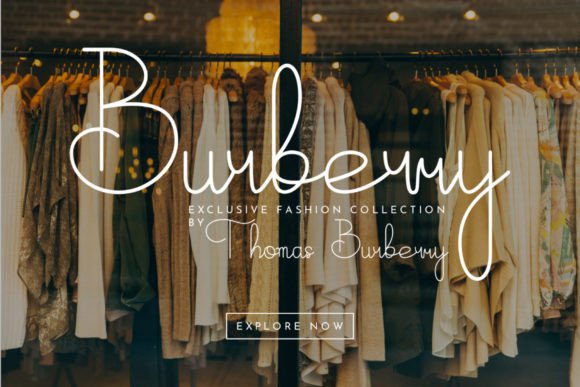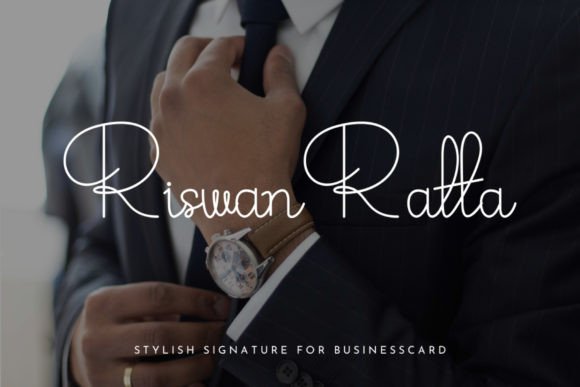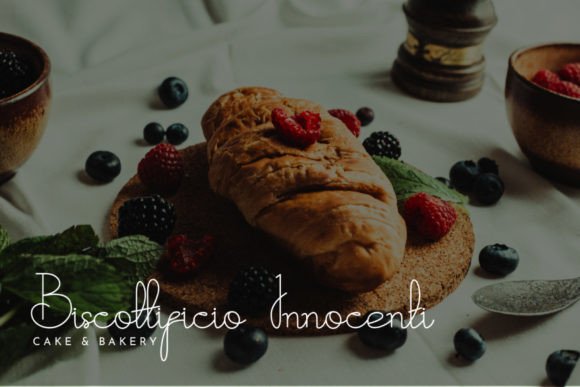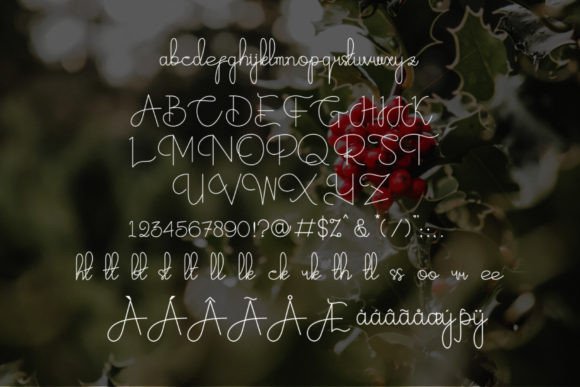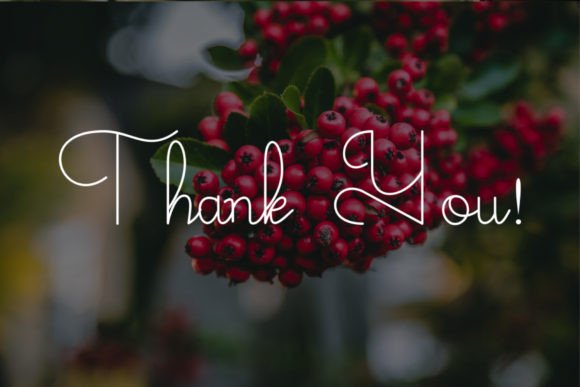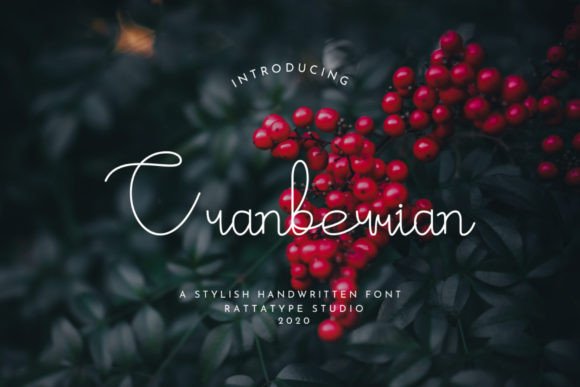
Introducing CRANBERRIAN: The Elegant Handwritten Font for Creative Projects
Are you a designer or crafter looking for a font that exudes luxury, elegance, and sophistication? Look no further than CRANBERRIAN, a beautiful handwritten style font that is perfect for a variety of creative projects. In this article, we’ll take a closer look at the CRANBERRIAN Typeface and explore its features, uses, and benefits.
What is CRANBERRIAN Typeface?
CRANBERRIAN Typeface is a luxurious and elegant handwritten style font that is designed to add a touch of sophistication to any project. Its beautiful, flowing script is perfect for creating high-end designs that require a level of refinement and poise. Whether you’re working on a photography project, wedding invitation, or fashion brand, CRANBERRIAN is the perfect choice.
Key Features of CRANBERRIAN Typeface
So, what makes CRANBERRIAN Typeface so special? Here are just a few of its key features:
- Beautiful Handwritten Style: CRANBERRIAN Typeface is a handwritten style font that is designed to look like it was written with a pen or pencil. Its flowing script is elegant and refined, making it perfect for high-end designs.
- Luxurious and Elegant: CRANBERRIAN Typeface is the epitome of luxury and elegance. Its sophisticated design makes it perfect for projects that require a level of refinement and poise.
- Fashionable and Trendy: CRANBERRIAN Typeface is a fashionable and trendy font that is perfect for designers and crafters who want to create modern and stylish designs.
- Versatile: CRANBERRIAN Typeface is a versatile font that can be used for a variety of projects, including photography, weddings, signatures, fashion tag lines, food and beverage, logos, and more.
Uses of CRANBERRIAN Typeface
CRANBERRIAN Typeface is a versatile font that can be used for a wide range of projects, including:
- Photography: CRANBERRIAN Typeface is perfect for photography projects, such as photo captions, titles, and descriptions.
- Weddings: CRANBERRIAN Typeface is a popular choice for wedding invitations, wedding signs, and other wedding-related projects.
- Signatures: CRANBERRIAN Typeface is perfect for creating elegant signatures for business cards, letters, and other documents.
- Fashion Tag Lines: CRANBERRIAN Typeface is a great choice for fashion tag lines, logos, and branding projects.
- Food and Beverage: CRANBERRIAN Typeface is perfect for food and beverage branding projects, such as restaurant menus, wine labels, and more.
- Logos: CRANBERRIAN Typeface is a great choice for logos, particularly for businesses that want to convey a sense of luxury and elegance.
Benefits of Using CRANBERRIAN Typeface
So, why should you choose CRANBERRIAN Typeface for your next project? Here are just a few of the benefits of using this beautiful font:
- Adds a Touch of Elegance: CRANBERRIAN Typeface adds a touch of elegance and sophistication to any project.
- Versatile: CRANBERRIAN Typeface is a versatile font that can be used for a wide range of projects.
- Easy to Read: CRANBERRIAN Typeface is easy to read, even in small sizes.
- Unique: CRANBERRIAN Typeface is a unique font that will help your project stand out from the crowd.
In conclusion, CRANBERRIAN Typeface is a beautiful, luxurious, and elegant handwritten style font that is perfect for designers and crafters who want to create high-end designs. Its versatile design makes it suitable for a wide range of projects, from photography and weddings to fashion and food and beverage branding. With its elegant script and easy-to-read design, CRANBERRIAN Typeface is a great choice for anyone looking to add a touch of sophistication to their project.